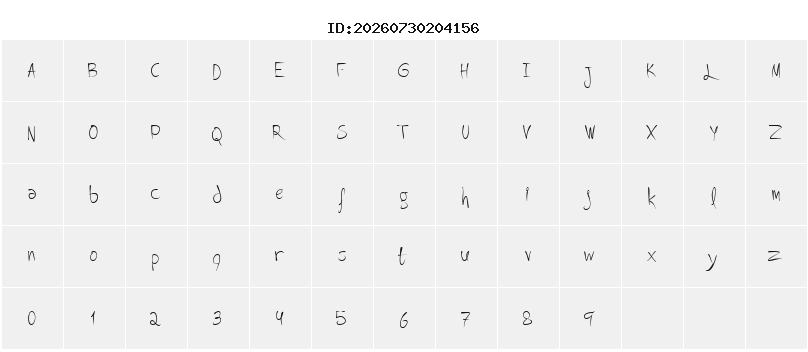
Lovitz Preview
• Font Name: Lovitz
• Designer: Meir Sadan
• Description: This font is a true handwriting font in all of its handwritten glory. All in all, it's as amateurish as it can get by means of production and level of painstakeness, but at least it has a solid and constructed look (well, kinda) so I'll give this font a B-minus because I'm feeling merciful today. I call it lovitz cuz I used my own handwritten "L" in it. It's sort of wider than all the other letters and it's pretty cool for spelling out "Love" but it's kinda trashy, too, so that's why it's not "Lov-e", but "Lov-itz" (I made that up right now)!